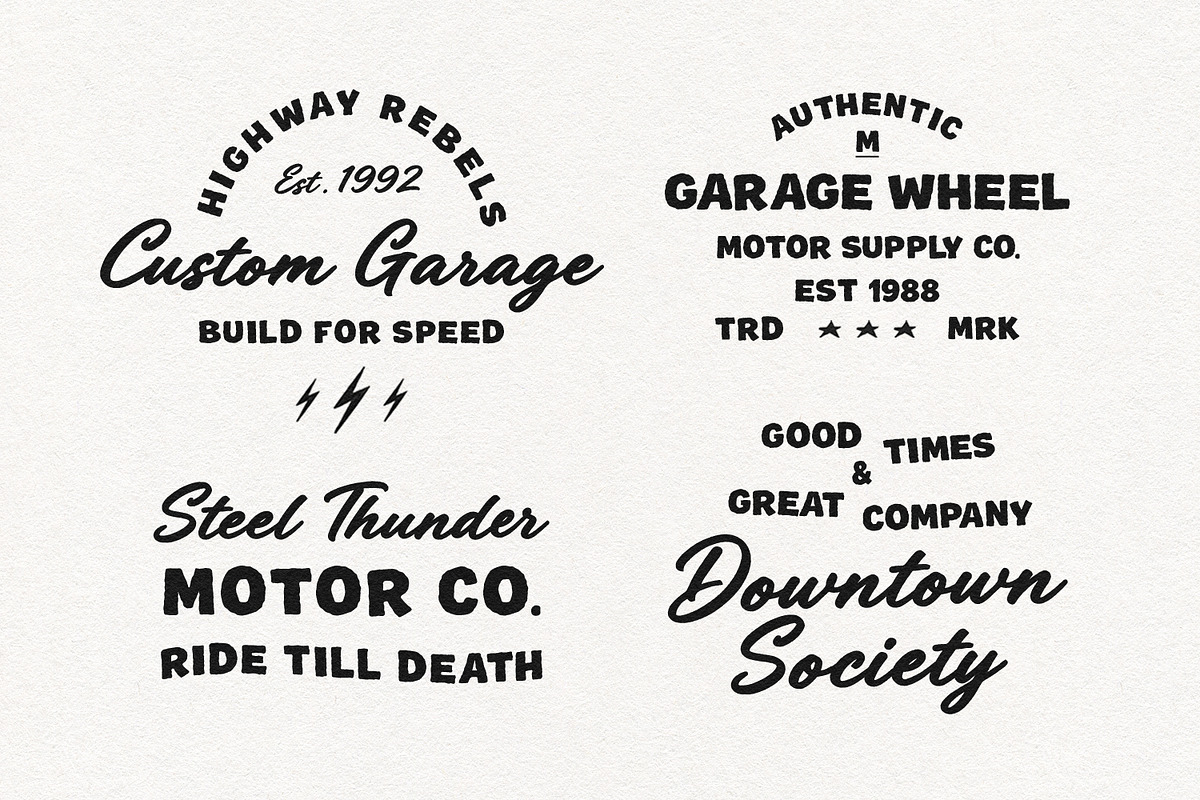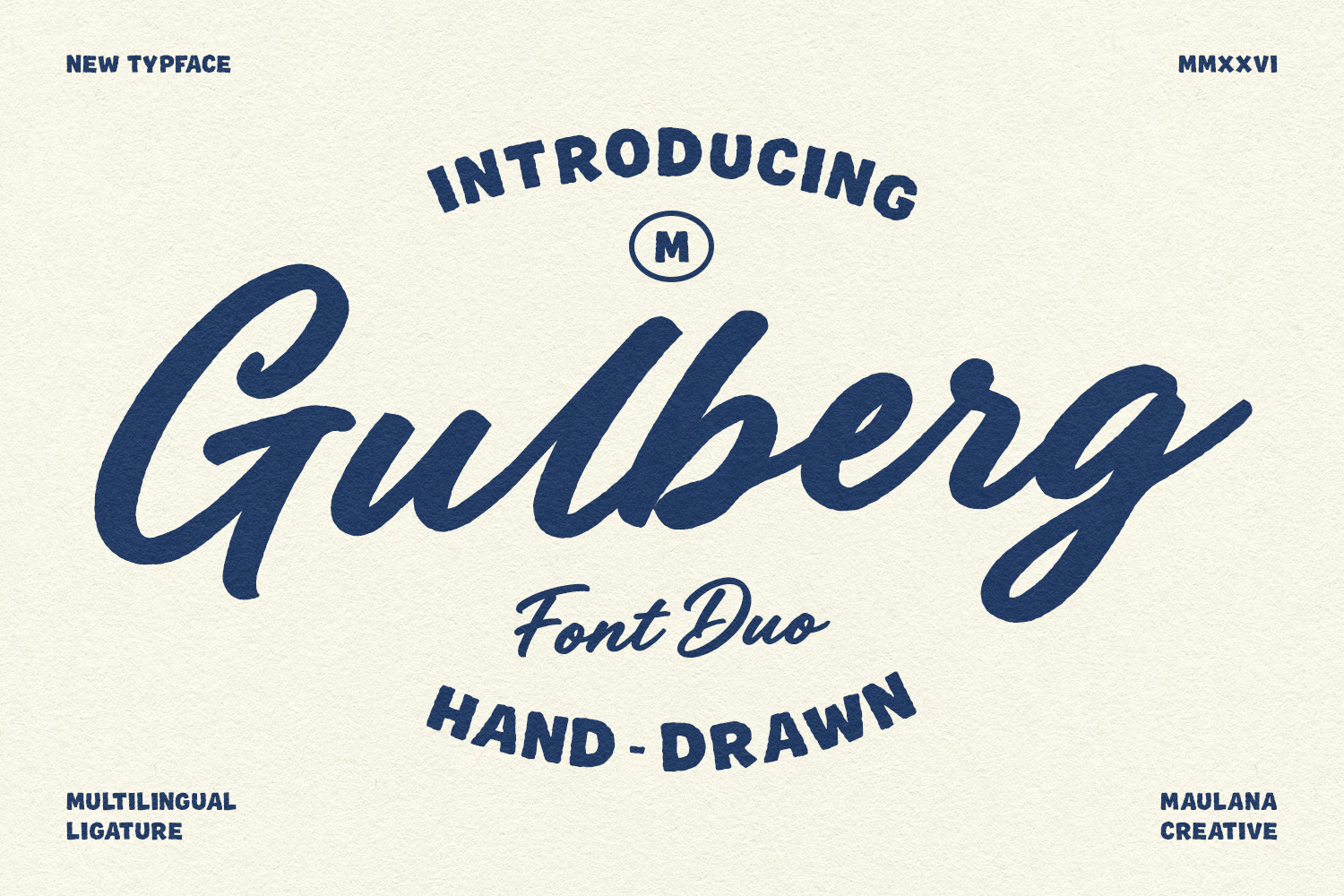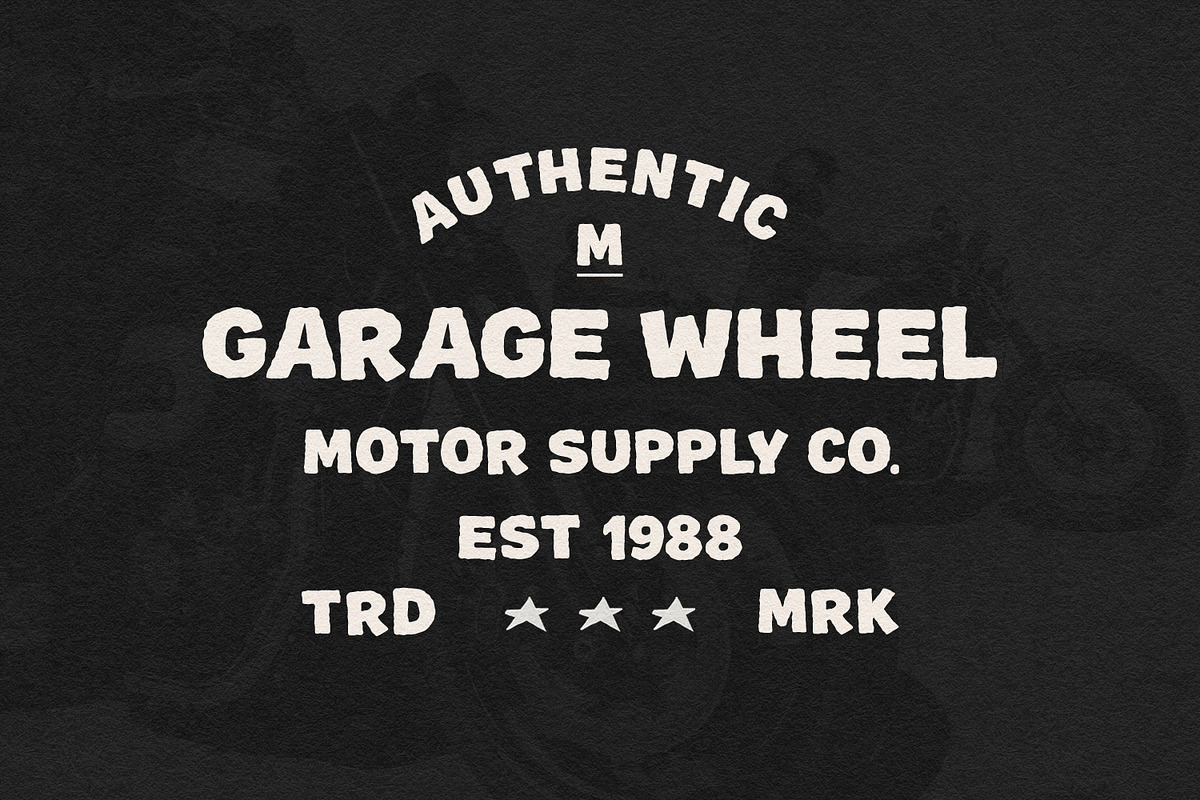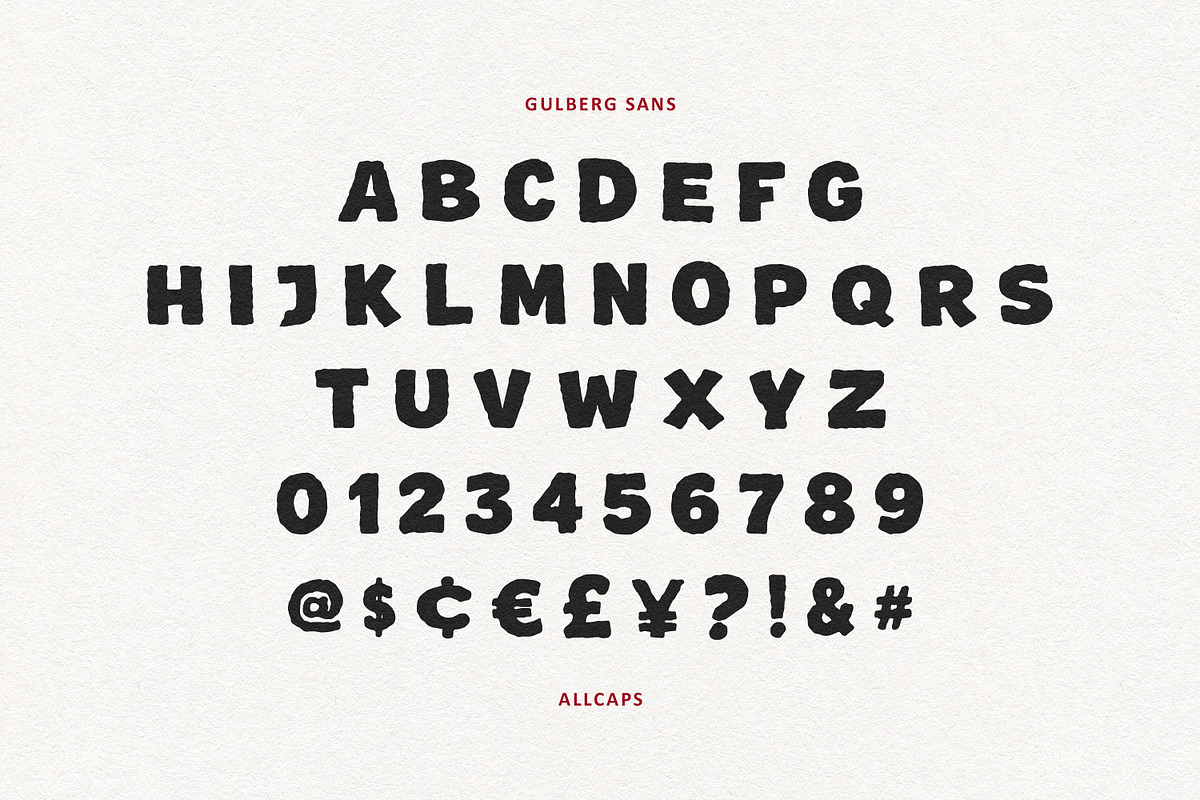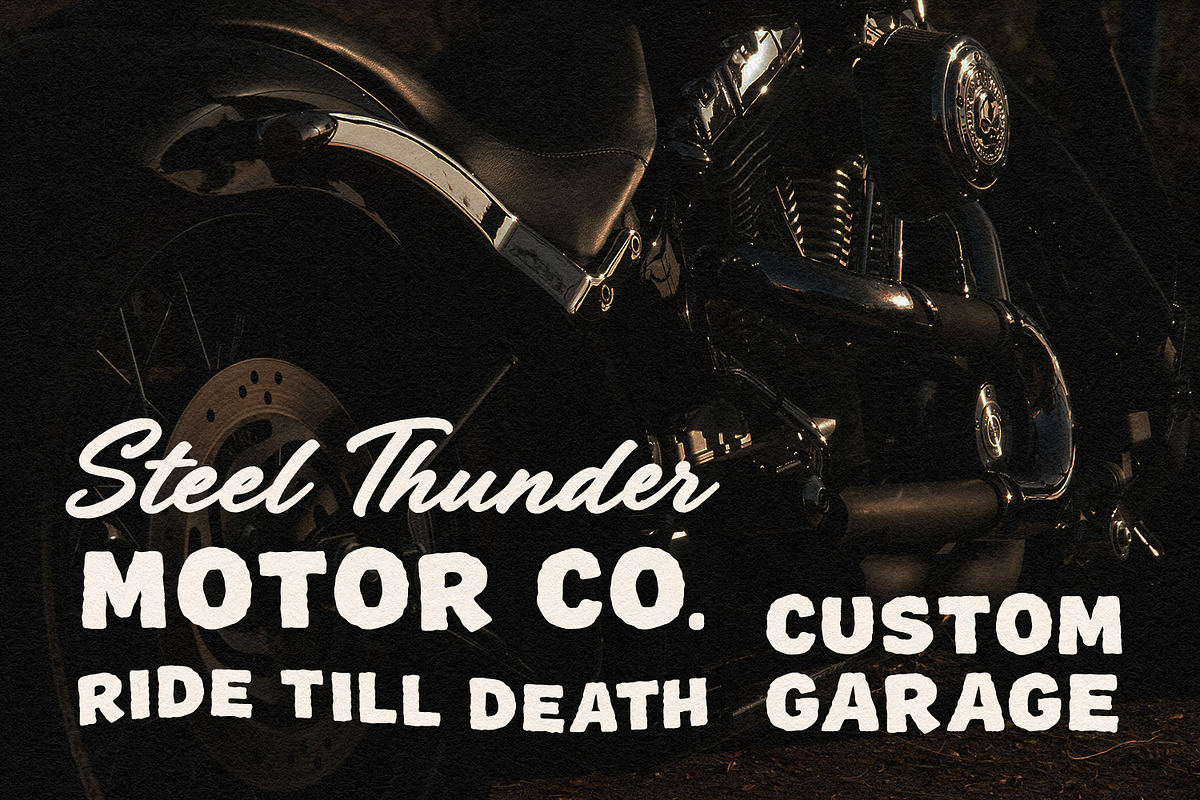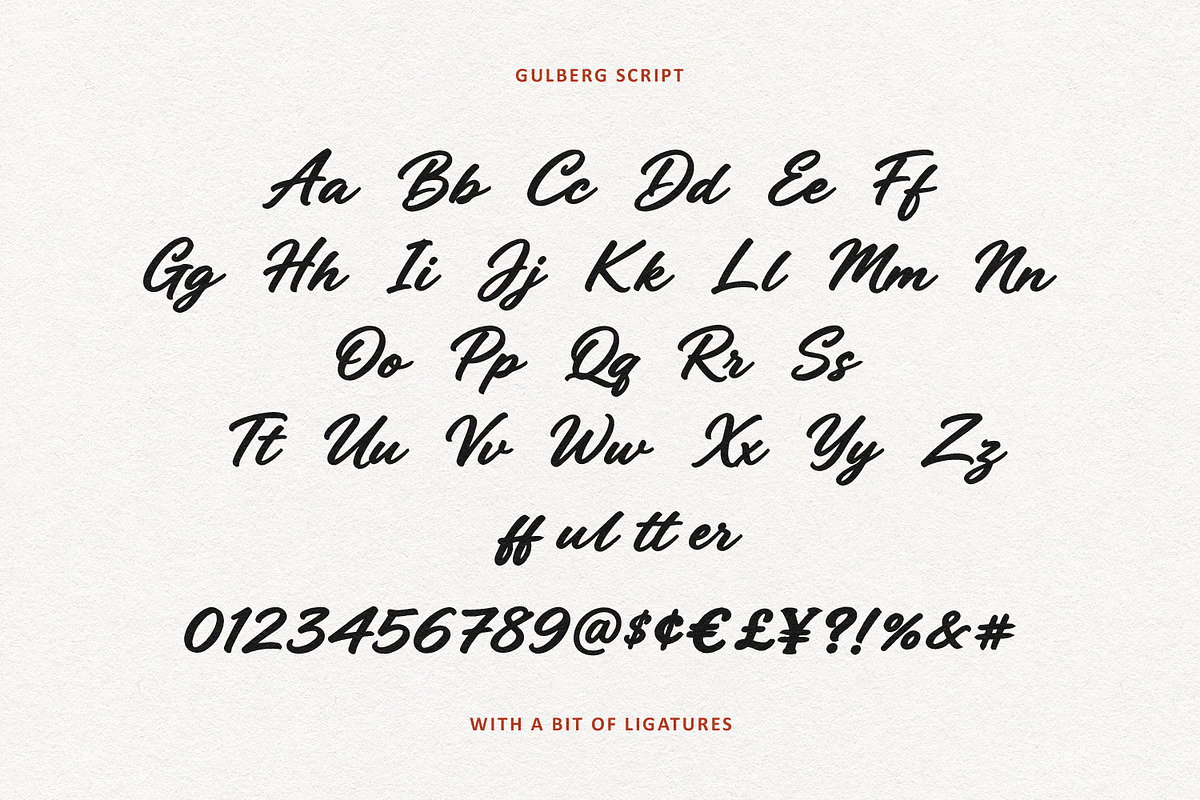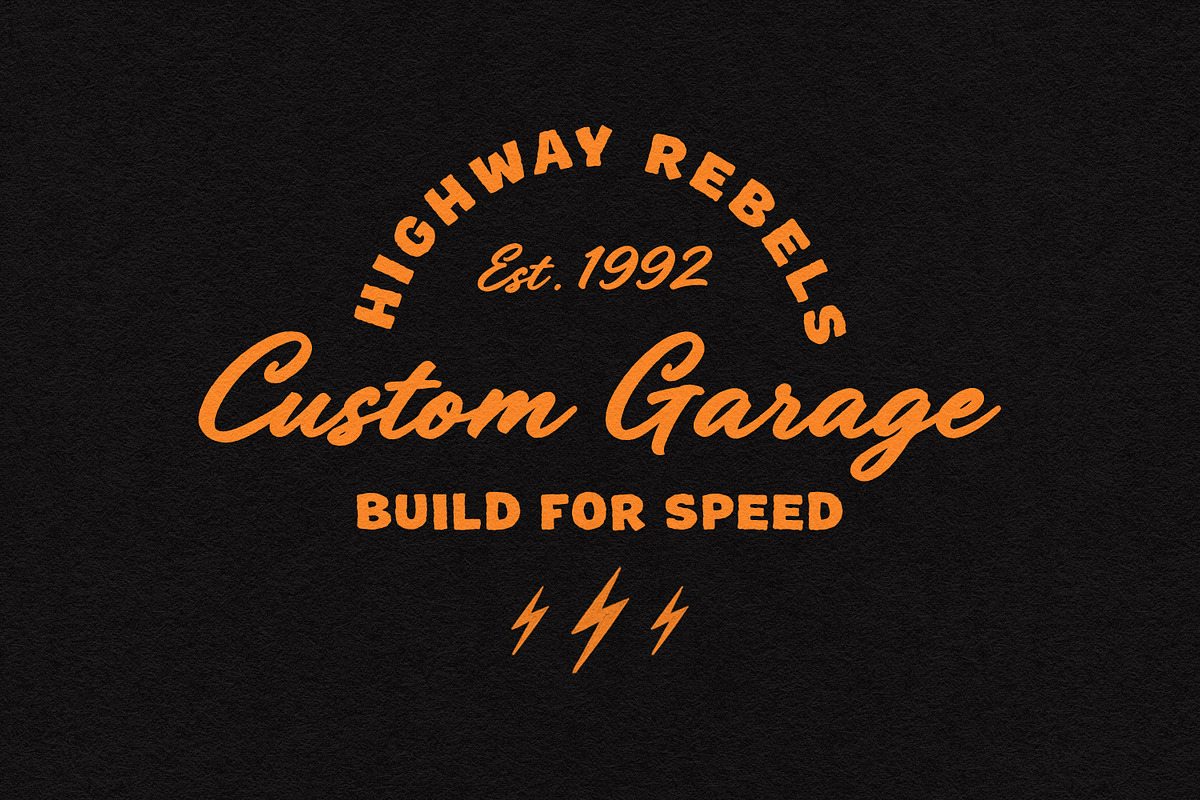
Gulberg Dry Font Duo Script Sans
Gulberg Font Duo offers a perfect combination of a smooth hand-drawn cursive script paired with a bold, textured sans-serif typeface. Designed to capture an authentic retro aesthetic, this typography combination brings a distinctive, handcrafted feel to graphic design projects. The rough edges and natural stroke variations give both styles an effortless vintage charm that immediately draws attention.
Equipped with multilingual support and custom ligatures, this versatile font pairing works exceptionally well for branding, logo design, product packaging, badges, posters, and motorcycle aesthetic art. Whether used together to create dynamic contrast or individually as standalone elements, Gulberg provides a classic retro look suitable for modern design needs.
- Ligatures for a natural handwriting flow